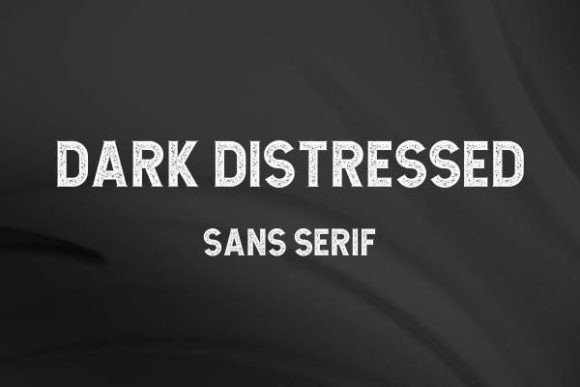
Looking for a versatile font that will add character and emotion to your design projects? Look no further than Dark Distressed Font! Created by beyouenked, this all-caps sans serif font is perfect for those looking to make a statement with their logos, branding, and web headings.
One of the best fonts for logos Adobe, Dark Distressed Font is designed to evoke a sense of ruggedness and authenticity that will capture the attention of your audience. With its rough edges and distressed look, this font adds a touch of grit and texture to your designs that will make them stand out from the crowd.
But don't let its rugged appearance fool you - Dark Distressed Font is incredibly versatile, working equally well in both modern and vintage designs. Its bold, clean lines make it easy to read even at small sizes, while its unique character ensures that it will never look dull or generic.
So why choose Dark Distressed Font for your next design project? Because it's more than just a font - it's an opportunity to tell a story. With its powerful emotional impact and unique character, this font is the perfect choice for those looking to create designs that truly stand out.